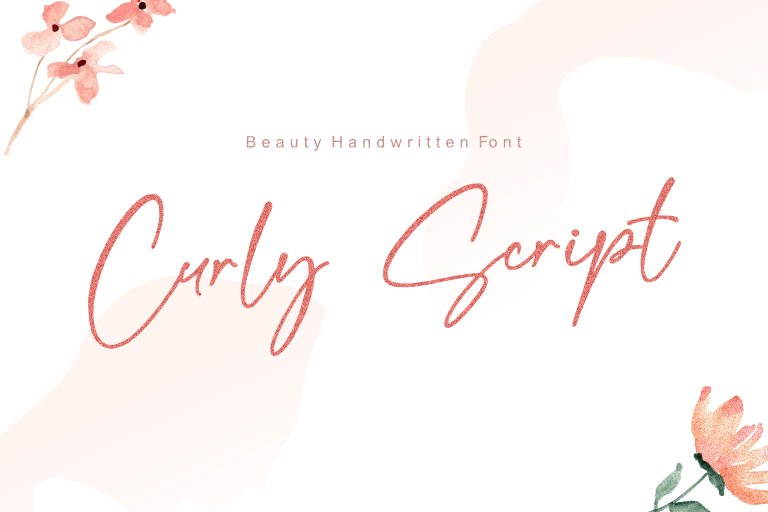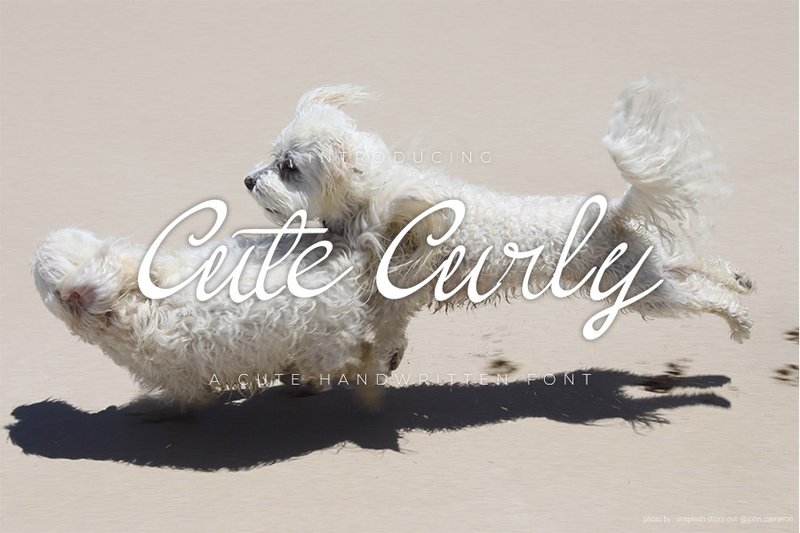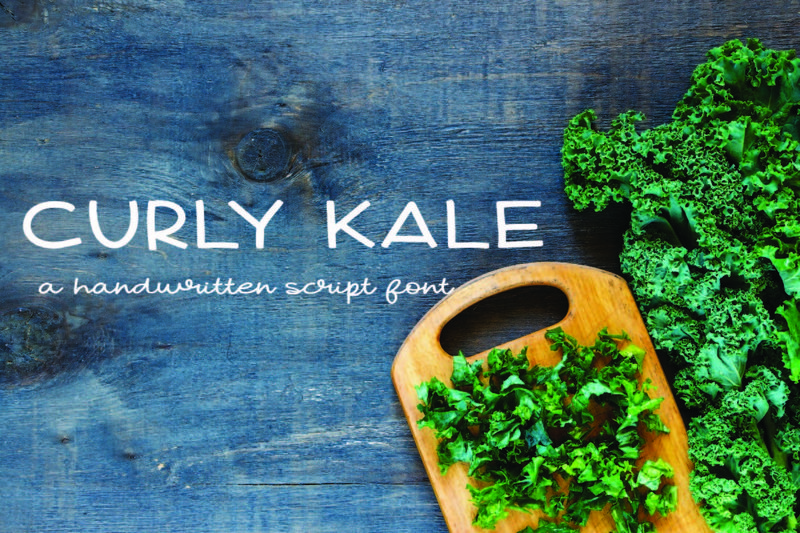
1. Curly Script (by ARLILA FOUNDATION)
Curly Script (by ARLILA FOUNDATION) sheds the weight of overly formal calligraphy, introducing a breath of fresh air for designs that demand a human touch. This font dances on the page with a sweet and delicate rhythm, its dainty, joyful strokes creating an immediate sense of intimacy and warmth. It’s the typographic equivalent of a handwritten note from a dear friend, making it an essential tool for projects that need to feel both elegant and deeply personal in a current design landscape.
- Delicate, flowing letterforms that mimic natural handwriting.
- A sweet and joyful personality ideal for romantic themes.
- Lightweight strokes create an airy, elegant, and approachable feel.
- Boutique wedding stationery suites, from invitations to place cards.
- Artisanal branding for florists, bakeries, photographers, and crafters.
- Creating heartfelt quotes and overlays for social media content.
2. Cute Curly (by Creassion Studio)
Cute Curly (by Creassion Studio) is like a love note scribbled in the margin of a favorite book—intimate, spontaneous, and brimming with personality. This charming handwritten font delivers a raw, authentic feel that is both deeply personal and effortlessly stylish. Its gentle loops and organic flow make it an ideal choice for any design project seeking a warm, approachable connection, offering a fresh and timeless take on handcrafted typography.
- Playful yet elegant curly letterforms.
- A natural, handwritten texture for a genuine, authentic feel.
- Smooth, organic strokes that mimic real ink on paper.
- Includes a full set of upper and lowercase characters.
- Wedding invitation suites and romantic event stationery.
- Boutique branding, logos, and artisanal product packaging.
- Engaging social media graphics and quote overlays.
- Personalized greeting cards and heartfelt print designs.
3. Curly Kale (by Ira Natasha)
Curly Kale (by Ira Natasha) feels like discovering a heartfelt, handwritten note tucked inside a favorite cookbook. This font radiates an approachable and organic energy, with gentle, rounded letterforms that create an immediate sense of comfort and authenticity. It’s the kind of typography that doesn’t shout for attention but rather invites you in with a charming, down-to-earth personality. Perfect for projects that need a touch of genuine, handcrafted appeal, Curly Kale is a versatile and friendly asset that feels both fresh and timelessly sweet.
- A charmingly organic, handwritten style with natural flow.
- Soft, rounded letterforms that convey a friendly and welcoming mood.
- Clean and legible characters, ensuring high readability across print and digital media.
- A versatile character set suitable for a wide range of creative applications.
- Branding for artisanal food products, local cafes, or children’s boutiques.
- Engaging social media graphics, quote cards, and friendly blog headers.
- Custom greeting cards, wedding invitations, and personalized stationery.
- DIY project tutorials and presentation slides that require a personal, human touch.
4. Love Curly (by goodigital)
Love Curly (by goodigital) If you are looking for a font that radiates pure, unadulterated joy, Love Curly is a standout choice. This cute handwritten typeface brings an immediate sense of playfulness and authenticity to any project, moving with a bouncy, organic rhythm that feels genuinely drawn by hand. Its rounded, friendly letterforms are incredibly approachable, making it a perfect tool for designs that need to connect with a youthful audience. Far from being just a novelty, Love Curly possesses a charming simplicity that makes text feel both spirited and effortlessly legible, ensuring your message is delivered with a warm and inviting smile.
- Authentic handwritten texture with charming imperfections.
- Bouncy, rounded letterforms that convey a sense of fun and movement.
- A friendly and approachable character set that is easy to read.
- Delivers a warm, genuine vibe perfect for personal and creative projects.
- Branding and packaging for children’s products, from toys to snacks.
- Educational materials, classroom posters, and school project headlines.
- Cute social media quotes and vibrant event invitations.
- Logos and marketing for daycares, play centers, or pediatric services.
5. Curly Charm (by YuningArt Studio)
Curly Charm (by YuningArt Studio) Joyful and utterly inviting, this handwritten script font dances across the page with an effortless, handcrafted feel. Its smooth, looping characters and natural ligatures create a sense of approachable elegance, making it a standout choice for projects that need to feel both personal and polished. Curly Charm masterfully balances playful energy with a sophisticated flow, allowing designers to infuse their work with a warm, authentic personality that connects instantly with an audience.